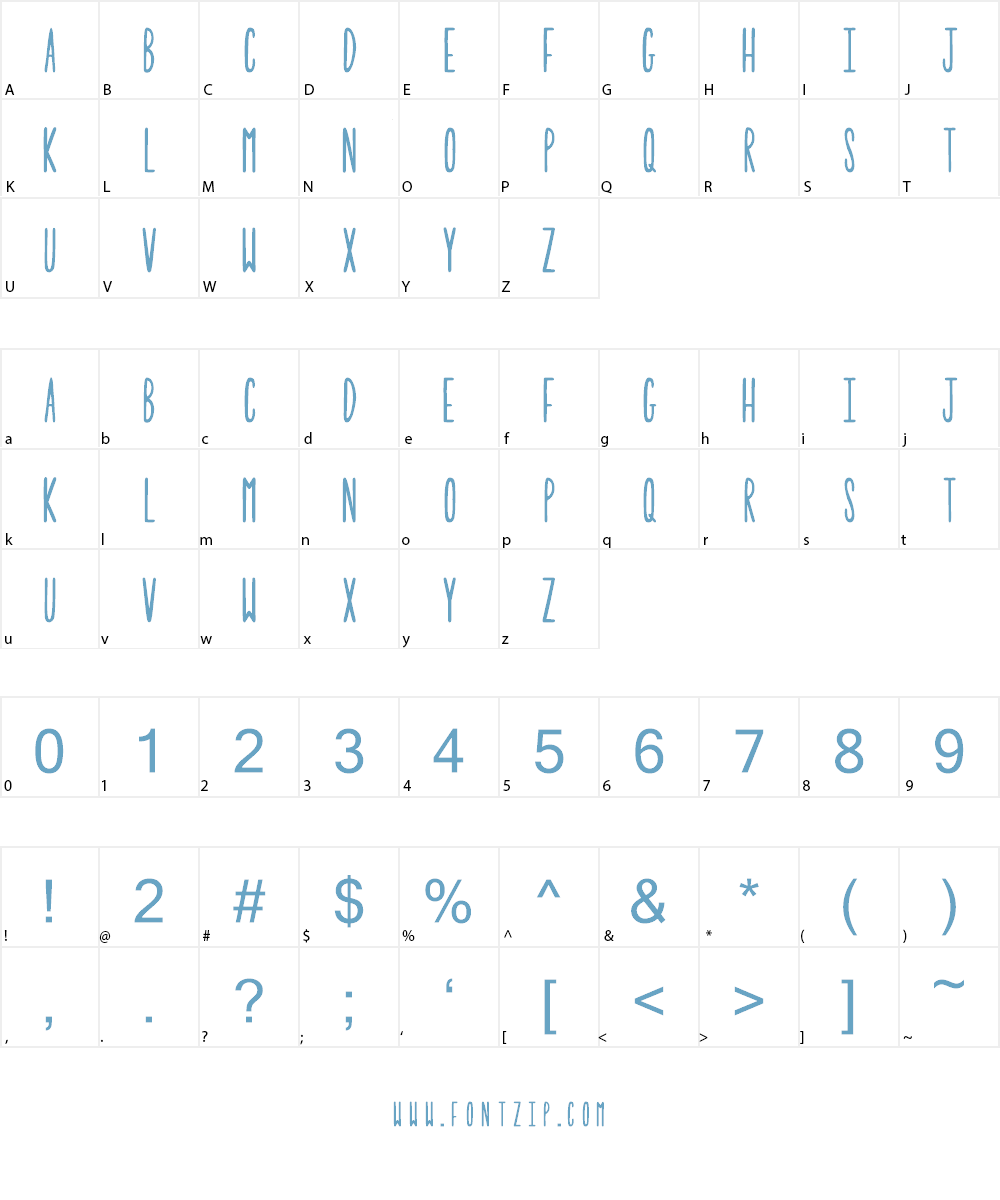
A hand lettered, tall and thin sans serif typeface. It was created to be modern and versatile for any project. Free for personal use. Commercial license available for $25 via paypal: http://bit.ly/2lZcnzE